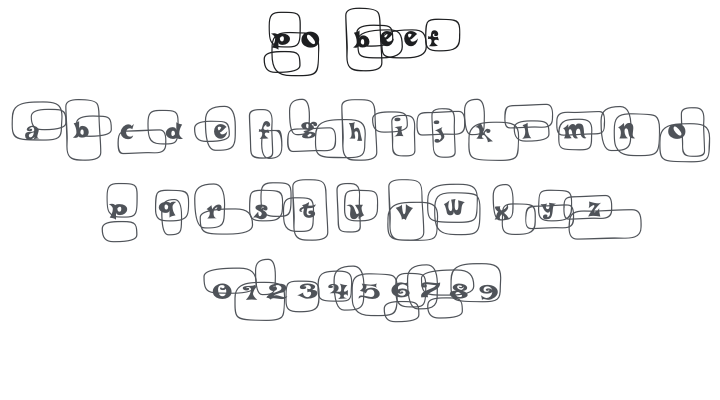
Po Beef Font
About Po Beef
Po Beef is a wildly quirky novelty display typeface where bold characters are trapped inside loosely drawn, overlapping rounded-square outlines — like each letter has been caged in a wobbly hand-sketched box. The jarring contrast between ornate medieval letterforms and crude cartoon containers creates an absurdly charming result. Perfect for novelty branding, comedy posters, zines, and any design that embraces deliberate, gleeful weirdness.